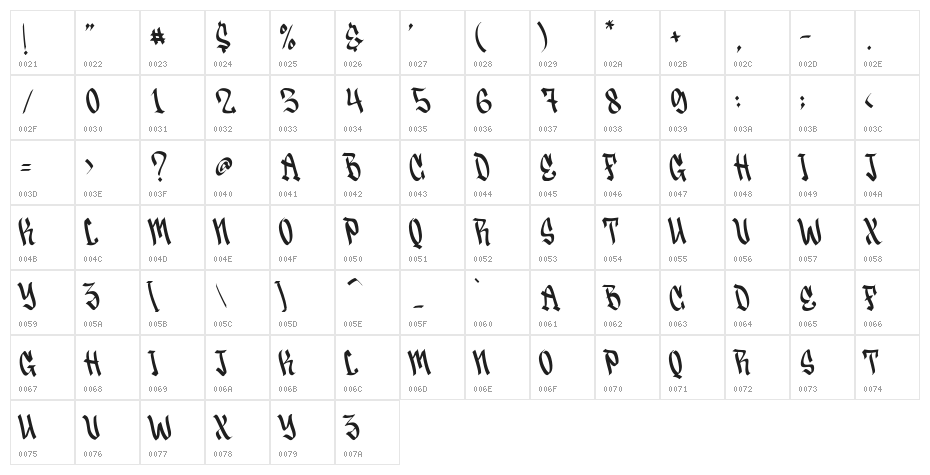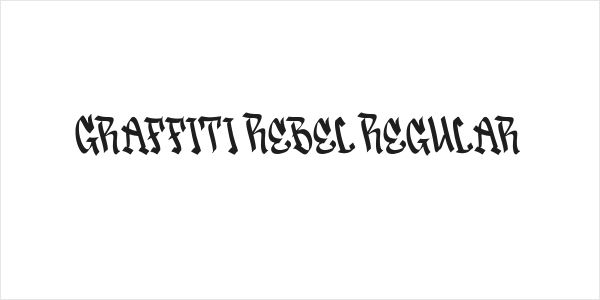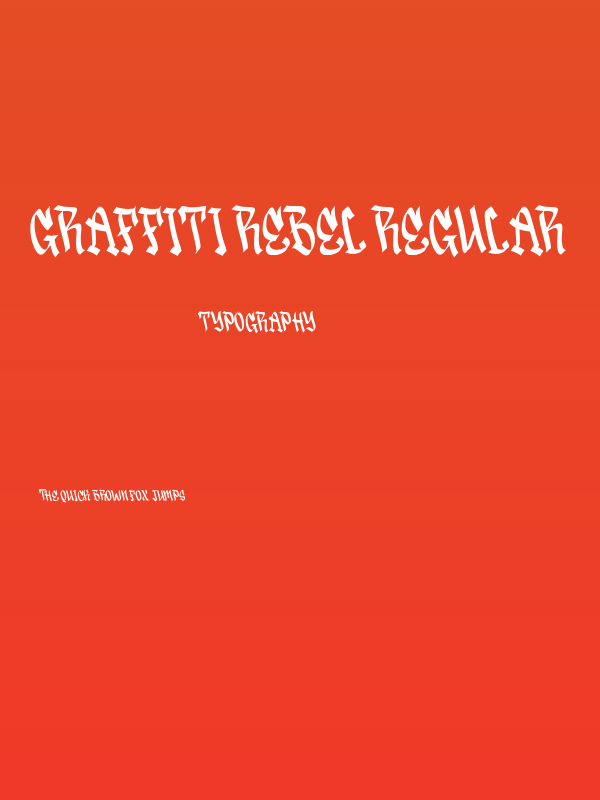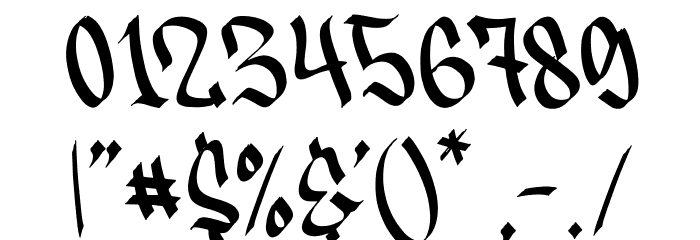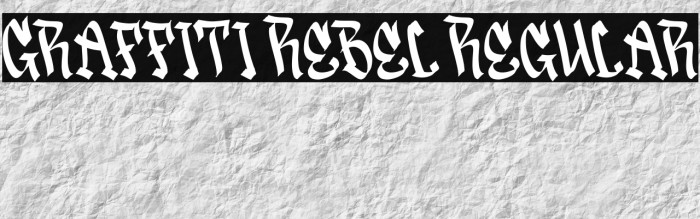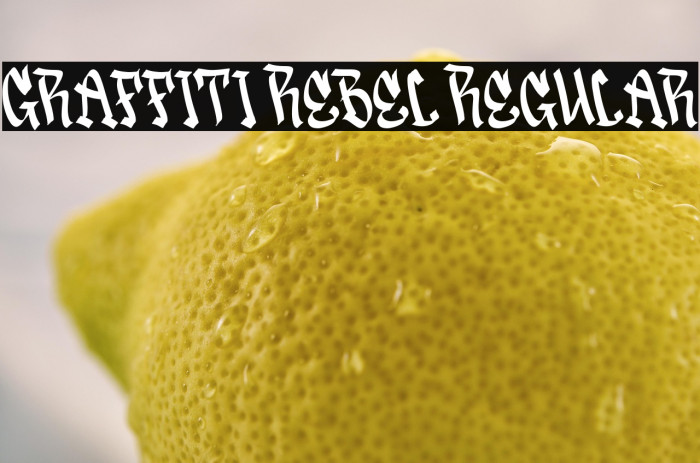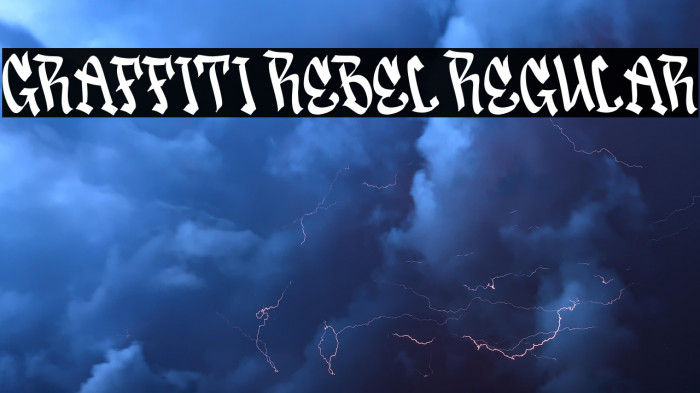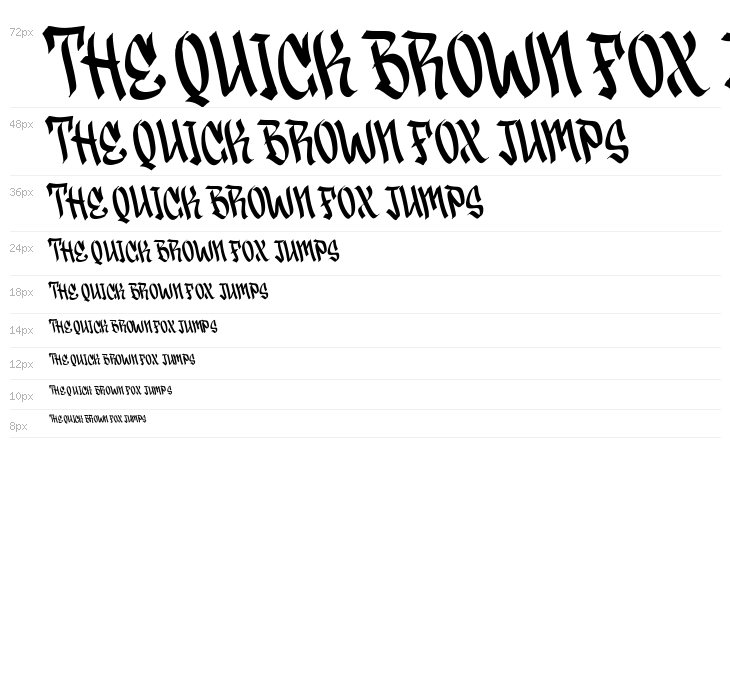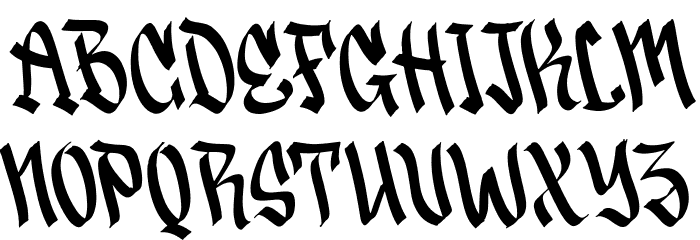
Graffiti Rebel Regular Font
This font features a bold and edgy style reminiscent of urban graffiti art. The characters are sharply angled with a dynamic flow, giving them a rebellious and energetic appearance. The uppercase and lowercase letters maintain a consistent style, with thick strokes and pointed edges that create a sense of movement and intensity. The numbers and special characters follow the same aesthetic, ensuring a cohesive look across all text. This font is ideal for projects that require a strong, impactful visual statement.
| Overall Style | Modern, Urban |
| Proposed Projects | Perfect for street art designs, music album covers, urban-themed posters, and edgy branding projects. |